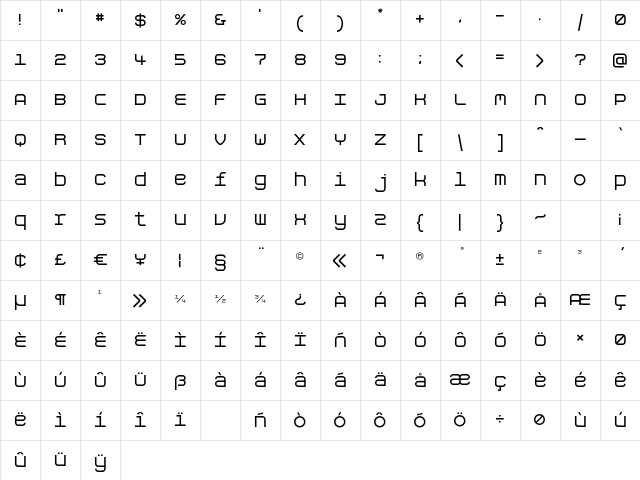
Aspirin Regular Free Font
Aspirin Regular
Design Context for Aspirin
Aspirin is a composed and adaptable typeface that performs quietly and consistently across a wide range of design contexts.